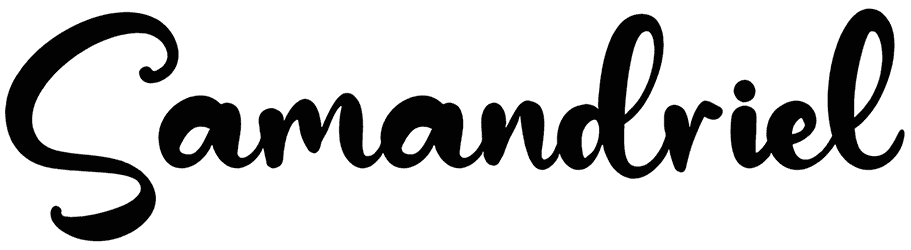
Samandriel Font
Samandriel is a gorgeous and intriguing calligraphy font that is sure to add a touch of panache to any project. This charming cursive font is excellent for invitations, business cards, and other design projects that need to make a statement.